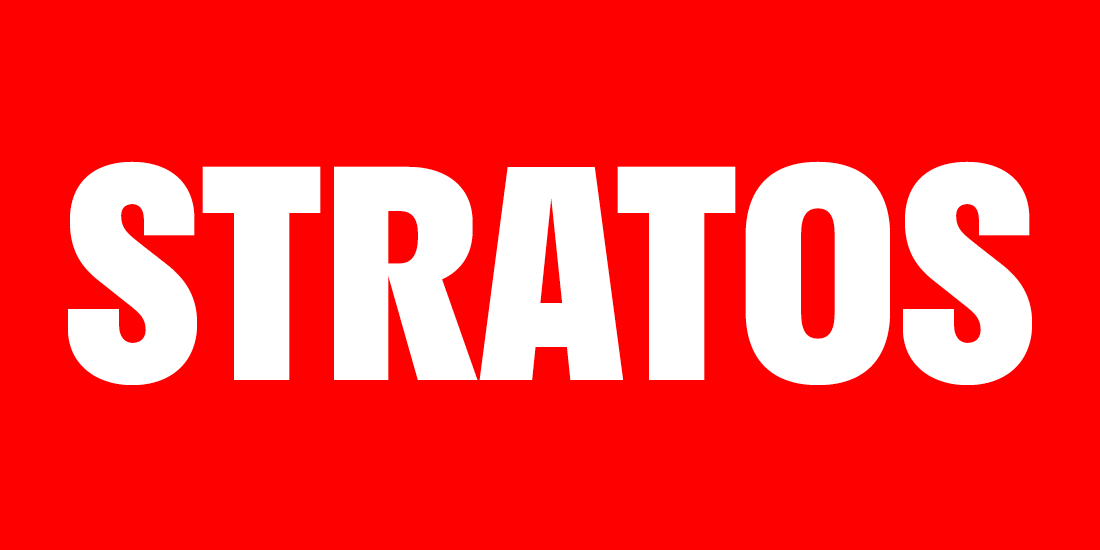
Stratos
Stratos is a geometric grotesque whose peculiar utility is derived from unusual ideas about proportion. It eschews conventional notions of typographic relationships — not just for novel effect, but to empower the user to do more interesting things with type.
The first and most obvious of these surprises can be seen in the difference between its upper- and lowercase. The caps are condensed, inspired by gothic wood type of the 20th century, while the minuscules are akin to certain classic geometric sans serifs, with circular rounds (o, d, b, p, q) and horizontal terminals (a, c, e, g, s). This contradiction presents intriguing possibilities. Used separately, the two designs exude individual personalities: the compact caps fill a page with the impact of a Victorian-era poster; the lowercase conveys an austere modernity. When employed together, the look is unexpected but surprisingly functional, thanks to carefully balanced spacing and weight.
The other uncommon concept has to do with the widths between weights. In Stratos, a line set in Black occupies no more space than one set in Thin. Each of the family’s ten weights share a common width — a technique known as multiplexing. This is useful for experimenting with font choice in magazine layouts, where content can remain constant while weight is adjusted. It also presents interesting opportunities for expressive and responsive typography. A website with dynamic backgrounds, for example, can serve the appropriate weight for optimal legibility without effecting the width of the text or the wrapping of lines. The upper- and lowercase letters are multiplexed as well, offering even more design flexibility.